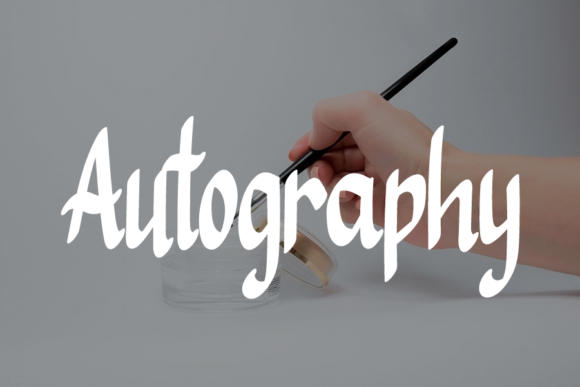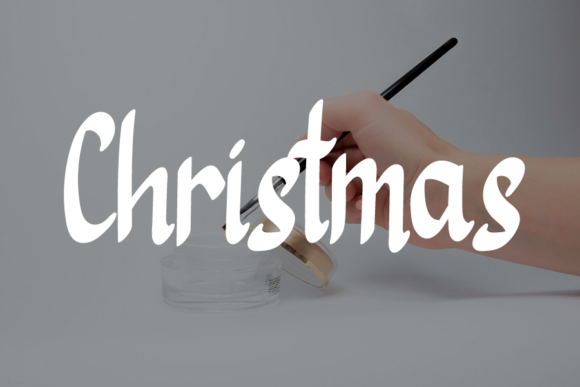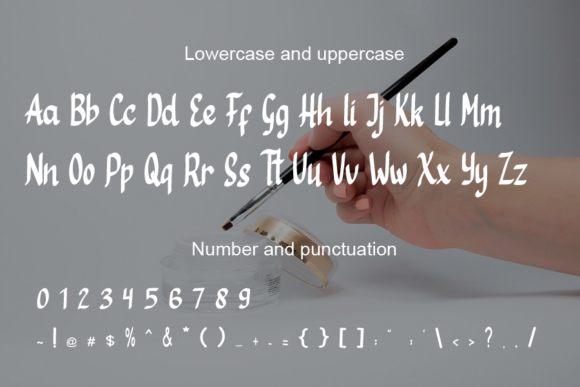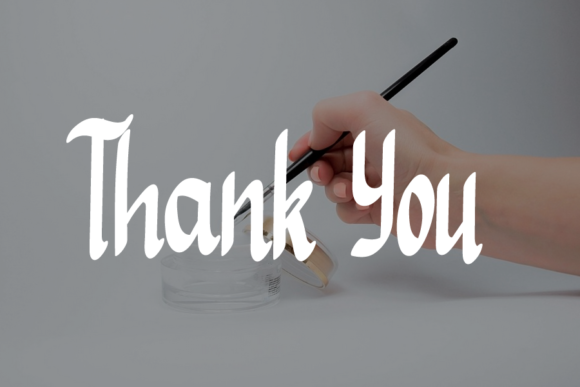
Discover the Magic of Handwritten Perfection
Have you ever sat down with a blank sheet of paper, a pen in hand, and let your creativity flow onto the page? The rush of emotions, the spark of inspiration, and the beauty of bringing your ideas to life – it’s a feeling like no other. And that’s exactly what Brilliant Font is all about.
This adaptable and detailed handwritten font is the perfect addition to any design project, from love letters to wedding invitations, and everything in between. Its unique charm and character will elevate your work to new heights, making it stand out from the crowd. Whether you’re a seasoned designer or just starting out, Brilliant Font is a valuable tool that will help you bring your vision to life.
Brilliant Font Key Features
- Unique Characteristics: Brilliant Font features a unique blend of modern and vintage elements, with intricate details and subtle nuances that set it apart from other fonts.
Brilliant Font Review
I recently had the chance to work with the Brilliant Font, and I’m excited to share my thoughts on this versatile font.
- The Brilliant Font is incredibly legible, even at small font sizes. It’s perfect for digital applications where readability is crucial.
- The font’s clean and modern design makes it a great choice for a wide range of projects, from corporate reports to creative campaigns.
- The Brilliant Font is highly customizable, allowing you to adjust the weight, width, and style to suit your design needs.
- The Brilliant Font may not be the best choice for traditional or formal projects, as its modern design may come across as too trendy.
- The font’s large file size may cause issues with slower internet connections or older systems.
Overall, I’m impressed with the Brilliant Font’s versatility and customization options. While it may not be suitable for every project, it’s a solid choice for modern and creative designs. With a little experimentation, I’m confident that you can unlock the full potential of this font.
Tips for Getting the Most Out of Brilliant Font
Use Brilliant Font to add a touch of sophistication to your designs.
Pair Brilliant Font with other elegant fonts for a polished look.
Brilliant Font is perfect for:
Business cards and brochures.
Magazine and newspaper headlines.
Alternatives to Brilliant Font
Playfair Display is an elegant serif font ideal for creating luxurious and sophisticated designs. It’s perfect for titles, headings, and body text in high-end branding, magazines, and advertising materials.
Compared to Brilliant Font, Playfair Display is more ornate and luxurious, while Brilliant Font is more modern and versatile.
Montserrat is a modern sans-serif font designed for urban environments. It’s ideal for titles, headings, and body text in digital products, apps, and websites.
Montserrat is more geometric and minimalist compared to Brilliant Font, which is more rounded and friendly.
Merriweather is a classic serif font suitable for body text, articles, and academic papers. It’s perfect for creating a professional and timeless look.
Merriweather is more traditional and formal compared to Brilliant Font, which is more modern and versatile.
Open Sans is a clean and modern sans-serif font ideal for digital products, apps, and websites. It’s perfect for body text, titles, and headings.
Open Sans is more minimalist and neutral compared to Brilliant Font, which is more rounded and friendly.